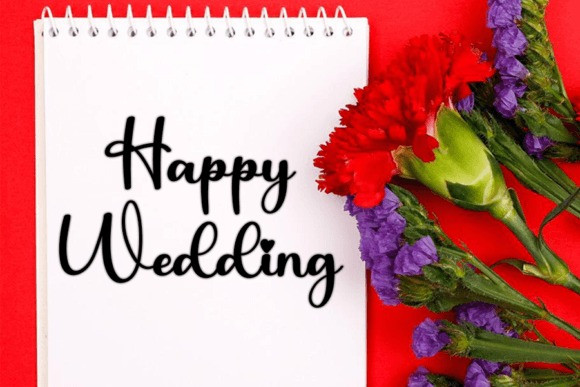
Bible Script Font
Bible Script Font, is a casual and friendly handwritten script font. No matter the topic, this font will be an incredible asset to your fonts’ library, as it has the potential to elevate any creation.